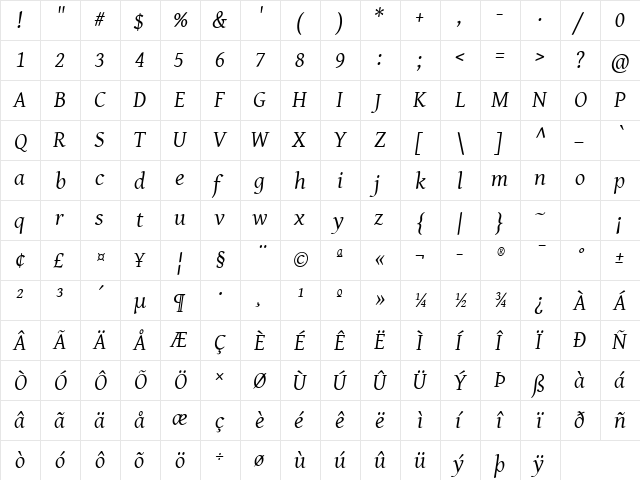
Gentium Basic Italic
| Foundry | SIL International |
| Designer | J. Victor Gaultney and Annie Olsen |
Design Context for Gentium Basic Typeface
Gentium Basic takes a measured approach to typography — its balanced proportions and neutral character make it a reliable workhorse for both digital and print work. The slanted form adds forward momentum and visual energy.